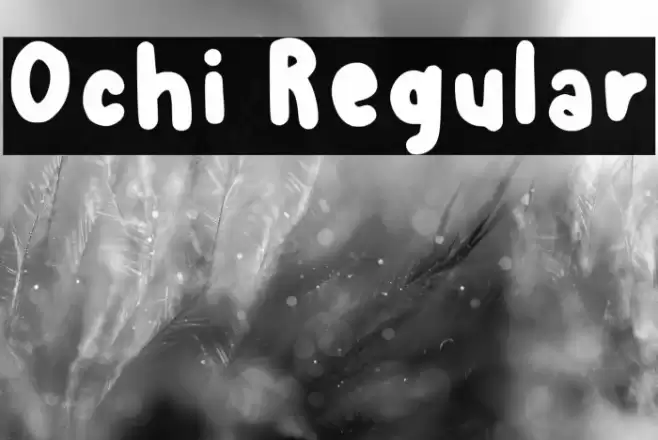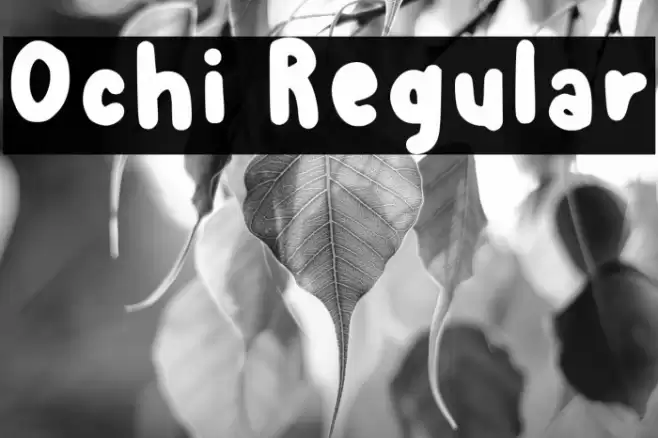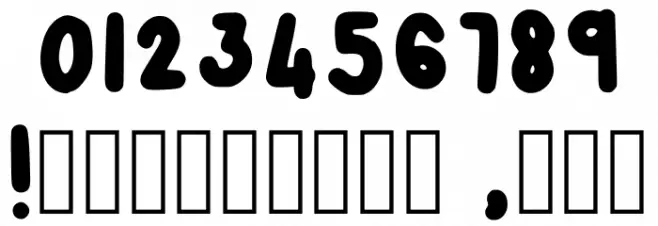
Ochi Regular Font
Ochi Regular Description
This playful and bold font features rounded, thick strokes that give it a friendly and approachable appearance. The characters are slightly irregular, adding a whimsical touch that makes it stand out. The uppercase and lowercase letters maintain a consistent style, with a smooth flow that enhances readability. Numbers and special characters are designed with the same playful aesthetic, making them suitable for a variety of creative projects. The font's overall appearance is casual and fun, making it ideal for designs that aim to convey warmth and friendliness.
A playful, bold font with rounded, thick strokes and a whimsical touch from Regular fonts.
- Proposed Projects: Ideal for children's books, playful branding, greeting cards, and casual invitations.
- Overall Style: Playful, Casual